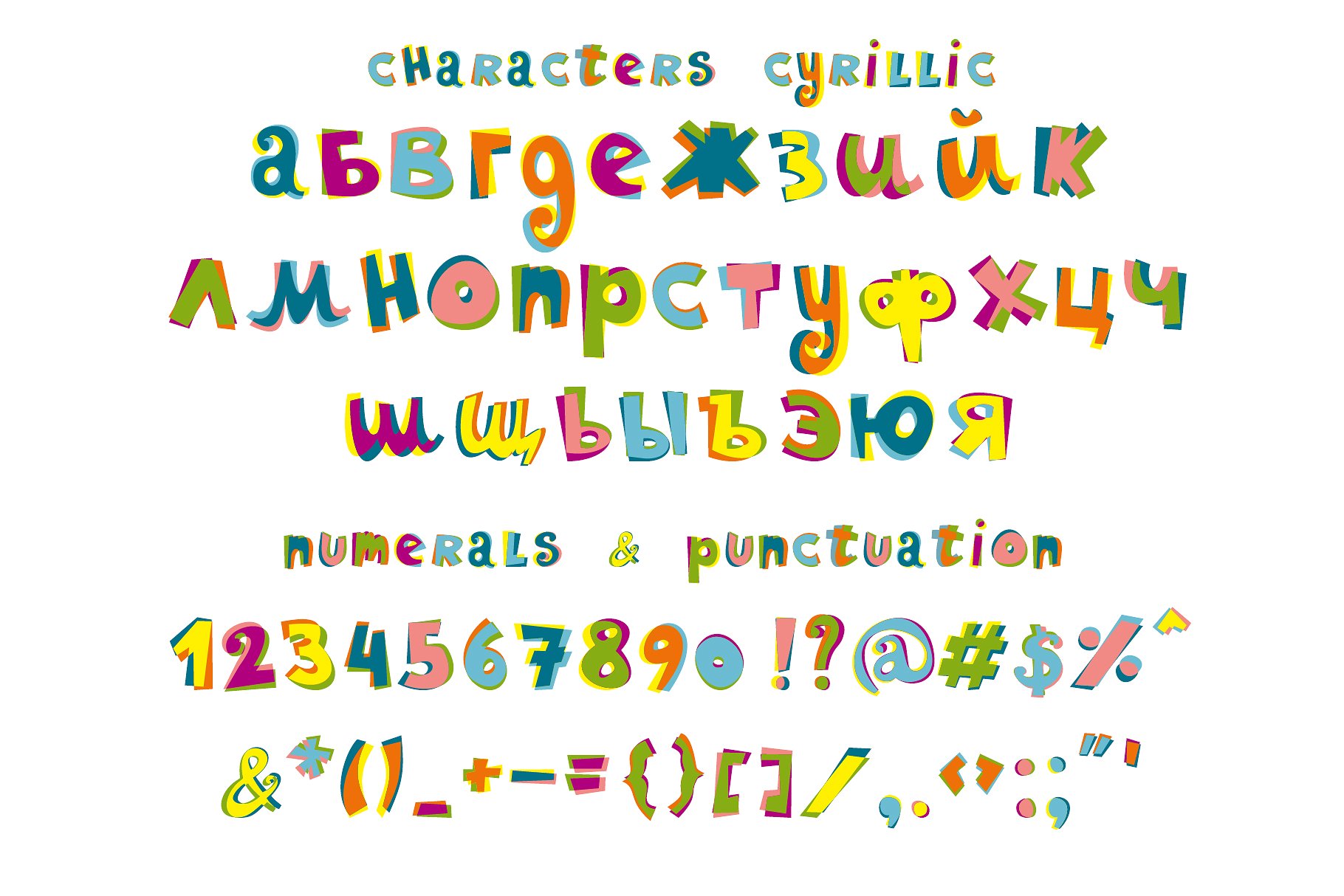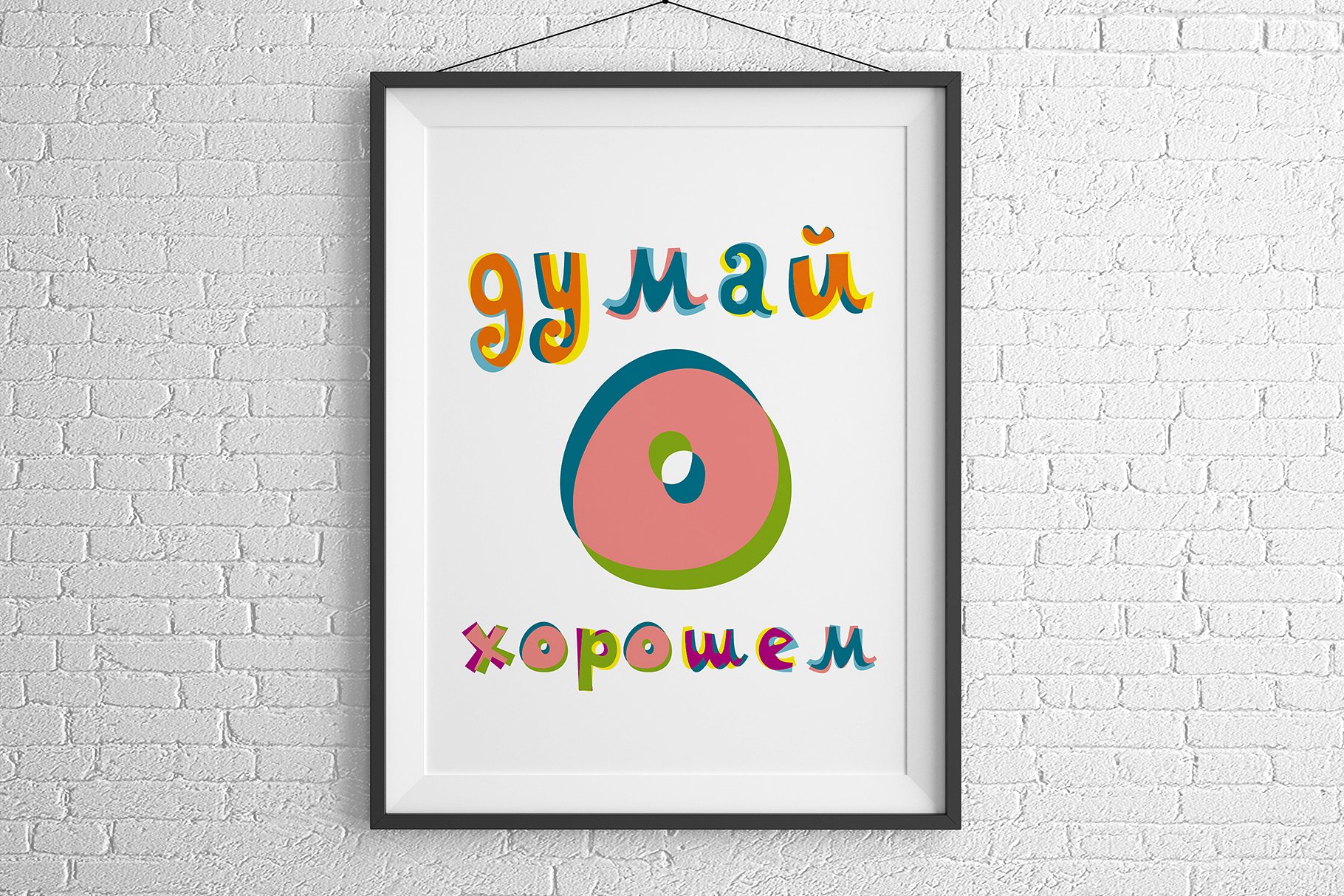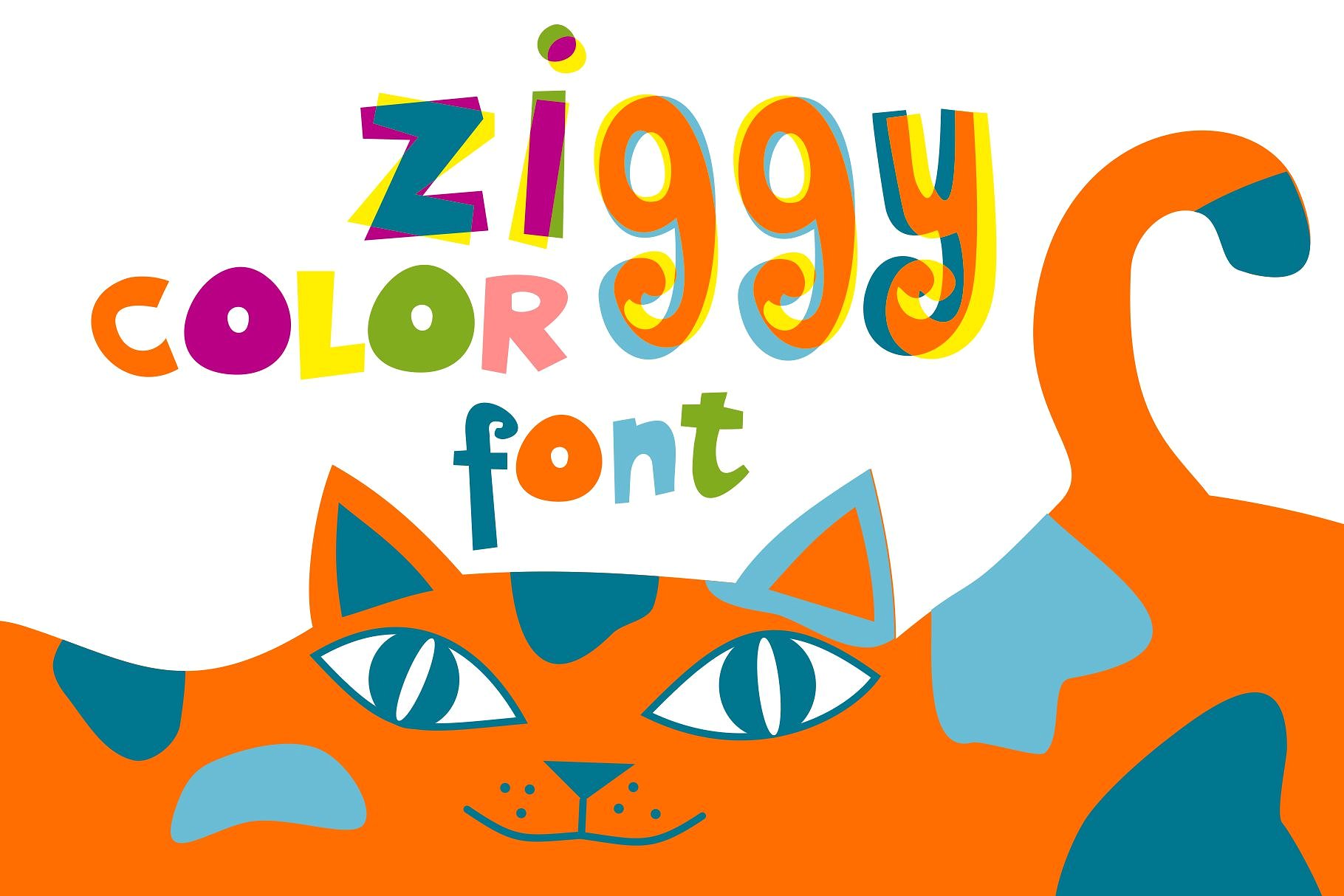
New fun color OpenType-SVG font – Ziggy with Latin and Cyrillic letters! It's a fun and cute font! This font work nicely for all sorts of things including t-shirt design, typographic art, social media images and so much more!
Font features: Standard characters A-Z, 0-9,and punctuation + classic versionfor the Latin Basic and Western European set, Cyrillic А-Я set.